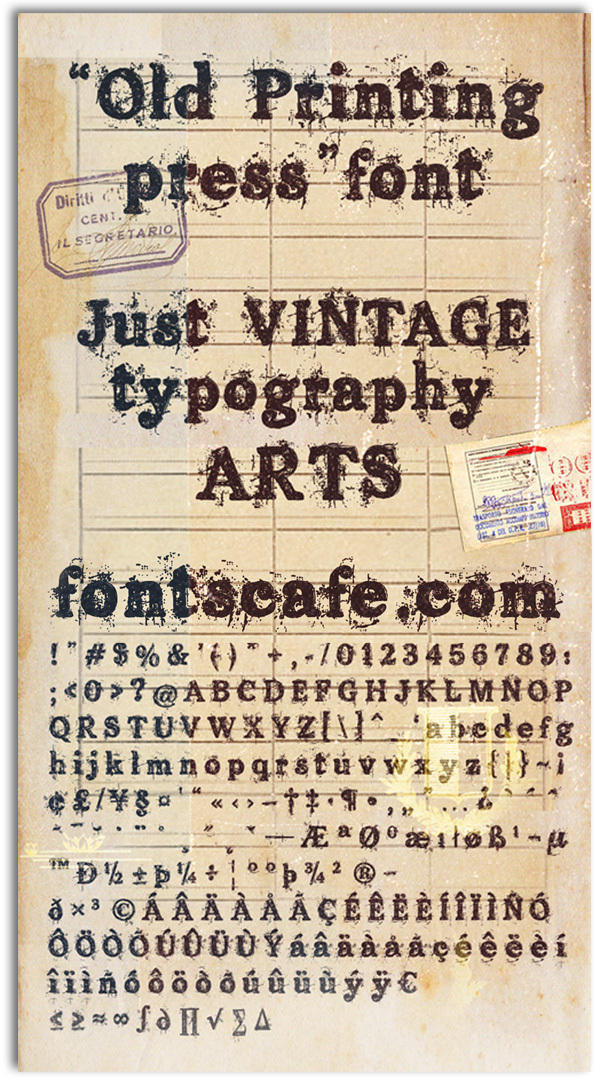
Old Printing Press from Fonts Lab is a free eroded display font modeled on battered letterpress type. Its broad slab serifs, uneven edges, and dense fields of scratches and ink flecks give the letters the messy force of an overprinted broadsheet.
Rebellion, underground music, and rough industrial subjects are its natural territory. The damaged print texture suits concert posters and album packaging, and it can merge with gritty photography on independent magazine covers. It can also shape brewery labels and skate merchandise, turning a name into something resembling a salvaged shop sign.